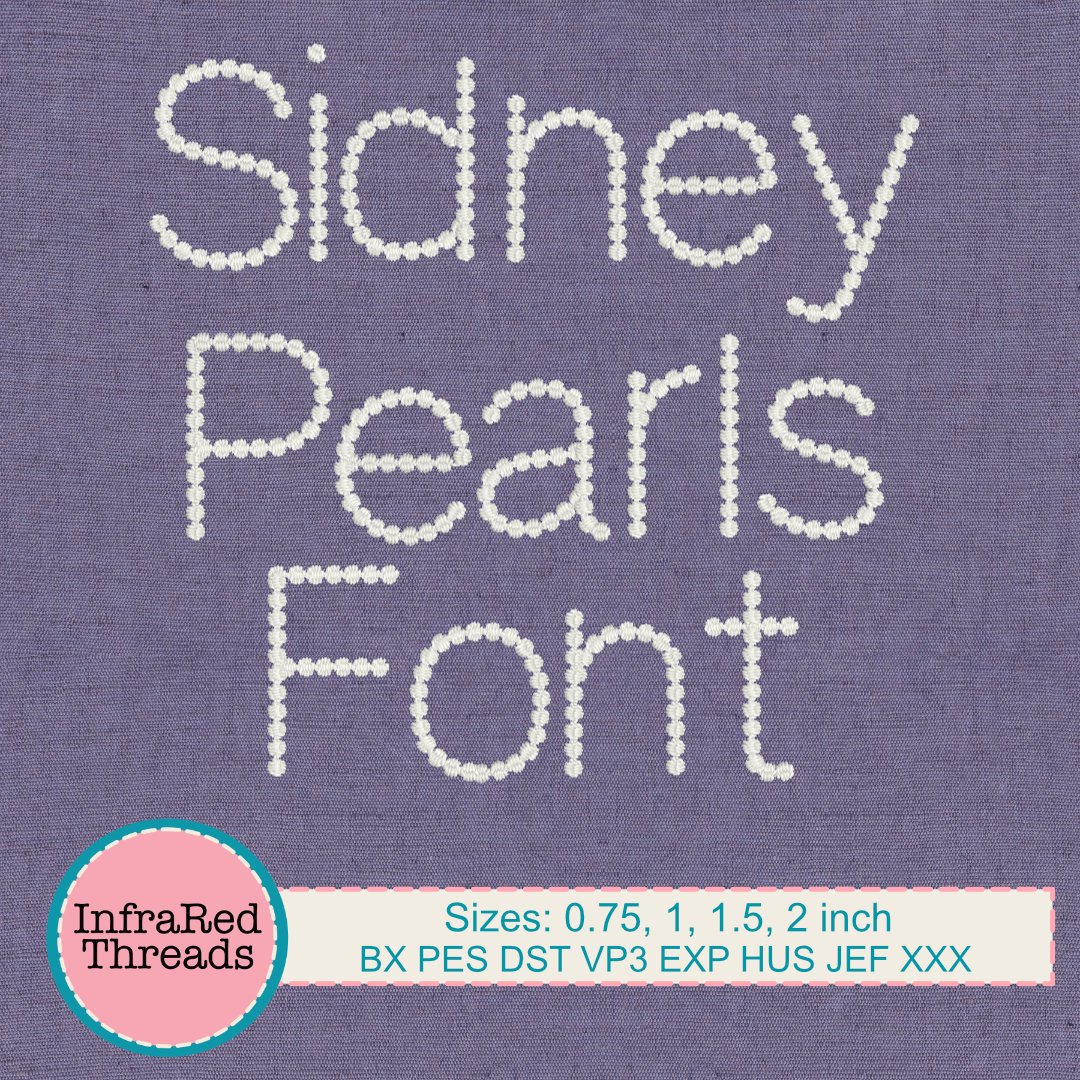
Sidney Pearls Embroidery Font – Dot Style Typeface in 4 Sizes
The Sidney Pearls Font is a playful, dot-style embroidery font that brings a fun and decorative touch to any project. Each letter is formed using rounded “pearl-like” satin stitch dots, creating a beaded or bubbly look that stands out beautifully on fabric.
This font is ideal for crafters looking to add a unique element to baby items, monograms, party decor, or boutique projects. With uppercase and lowercase letters included in four practical sizes, Sidney Pearls gives you plenty of flexibility for personal or small business embroidery use.